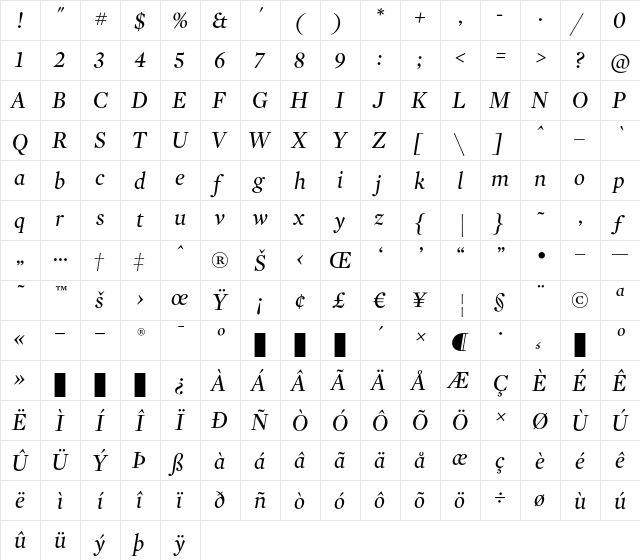
Mercury Display Italic Font Preview
Mercury Display Italic
Design Context for Mercury Display Typeface
Mercury Display brings ornamental detail and strong personality to headlines and identities, where visual impact matters more than quiet functionality. Its italic angle brings a sense of urgency and motion to the letterforms.
Font Pairing: Pair with a clean neutral sans-serif for body copy to let Mercury Display's character lead without overwhelming the composition.
Pro Tip: Use Mercury Display exclusively at display sizes — it was designed to be seen, not read at length. Let a neutral companion handle body copy.